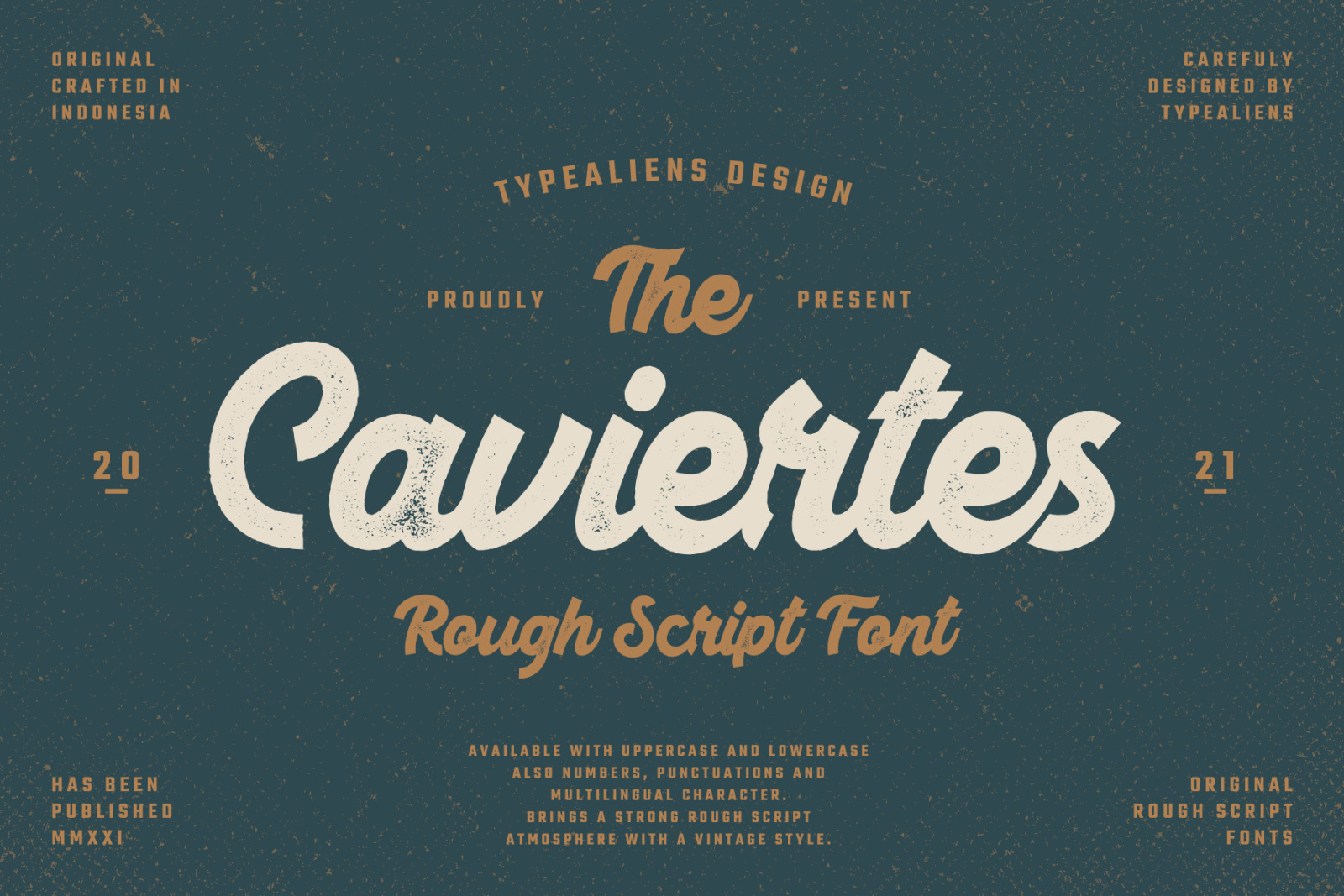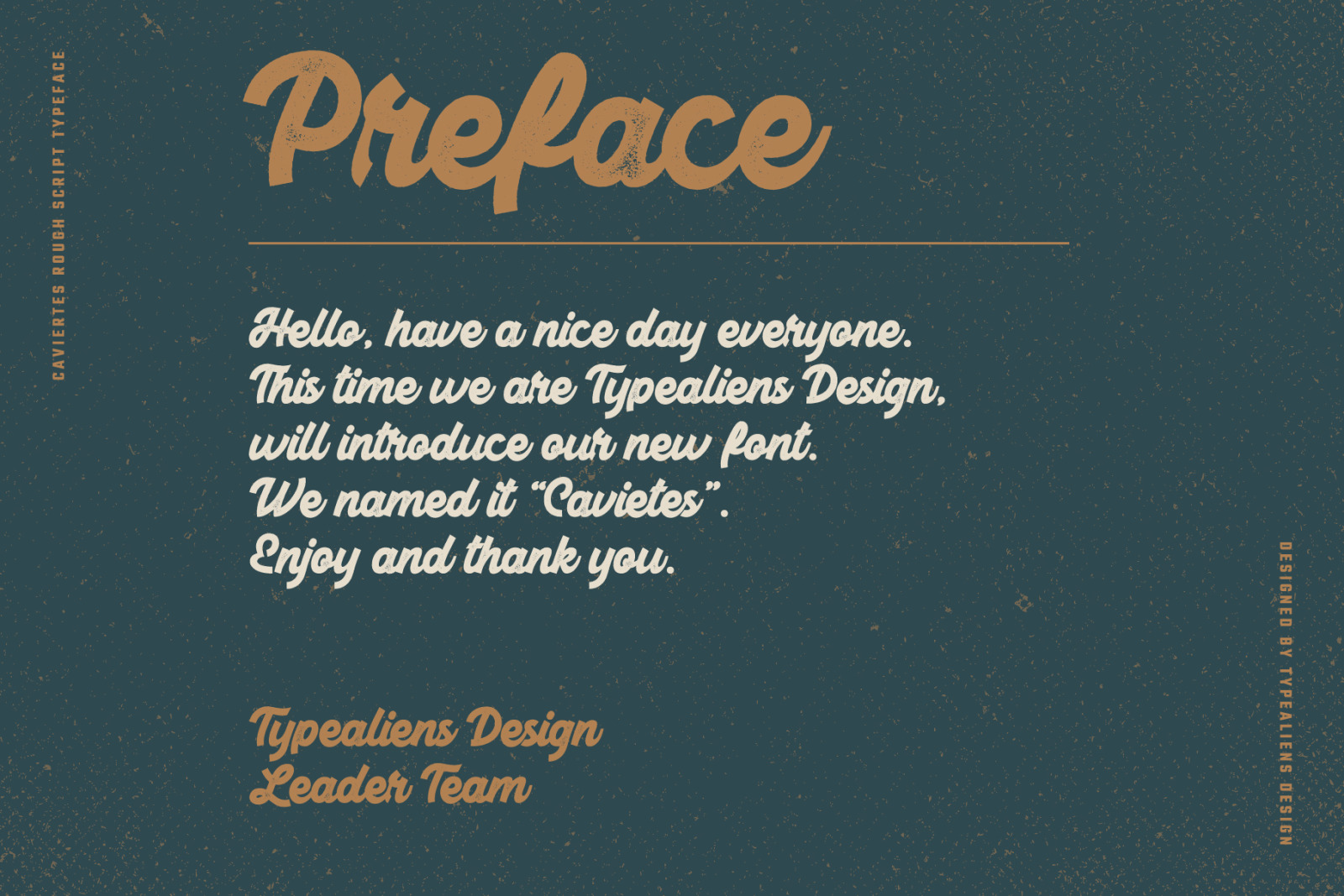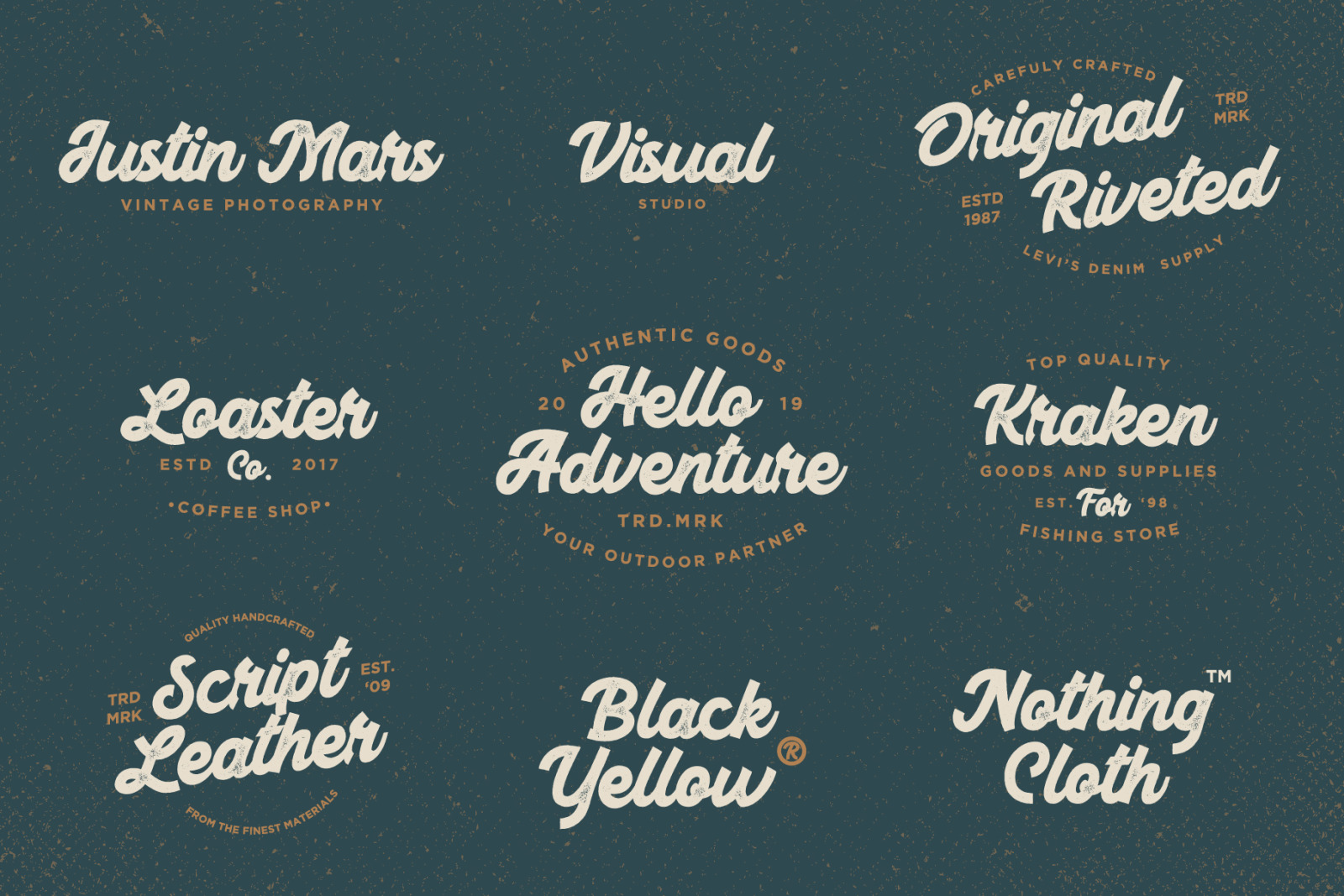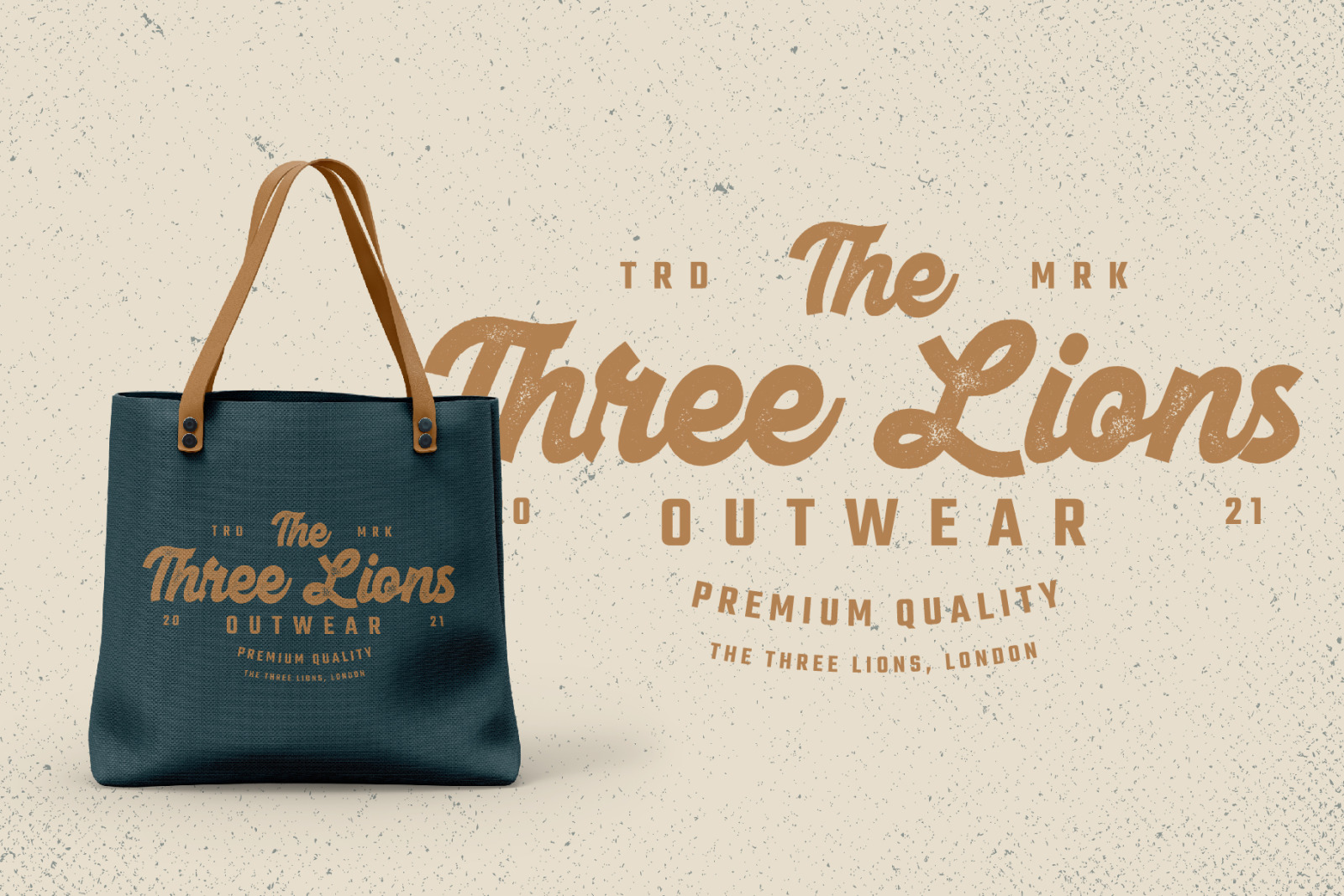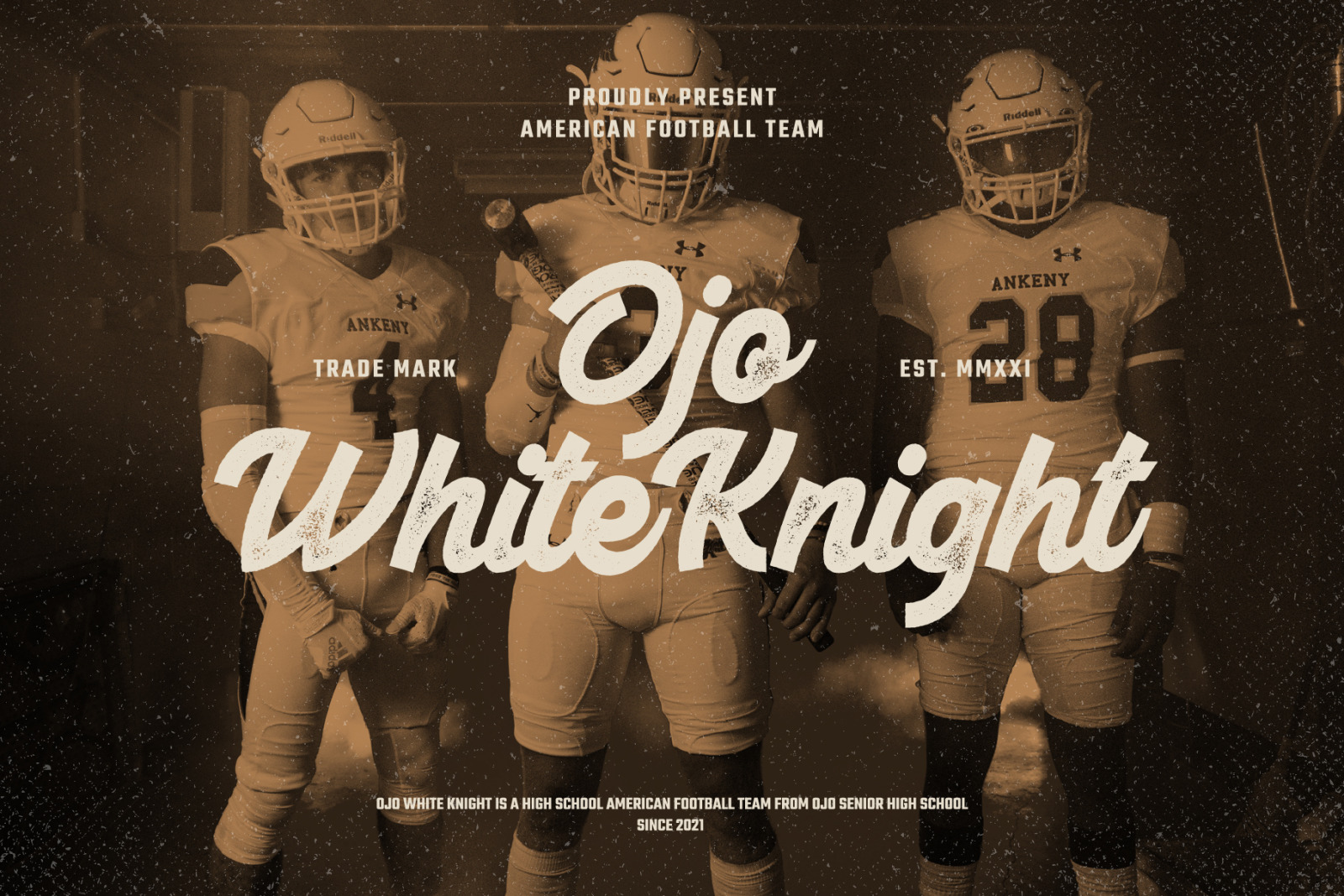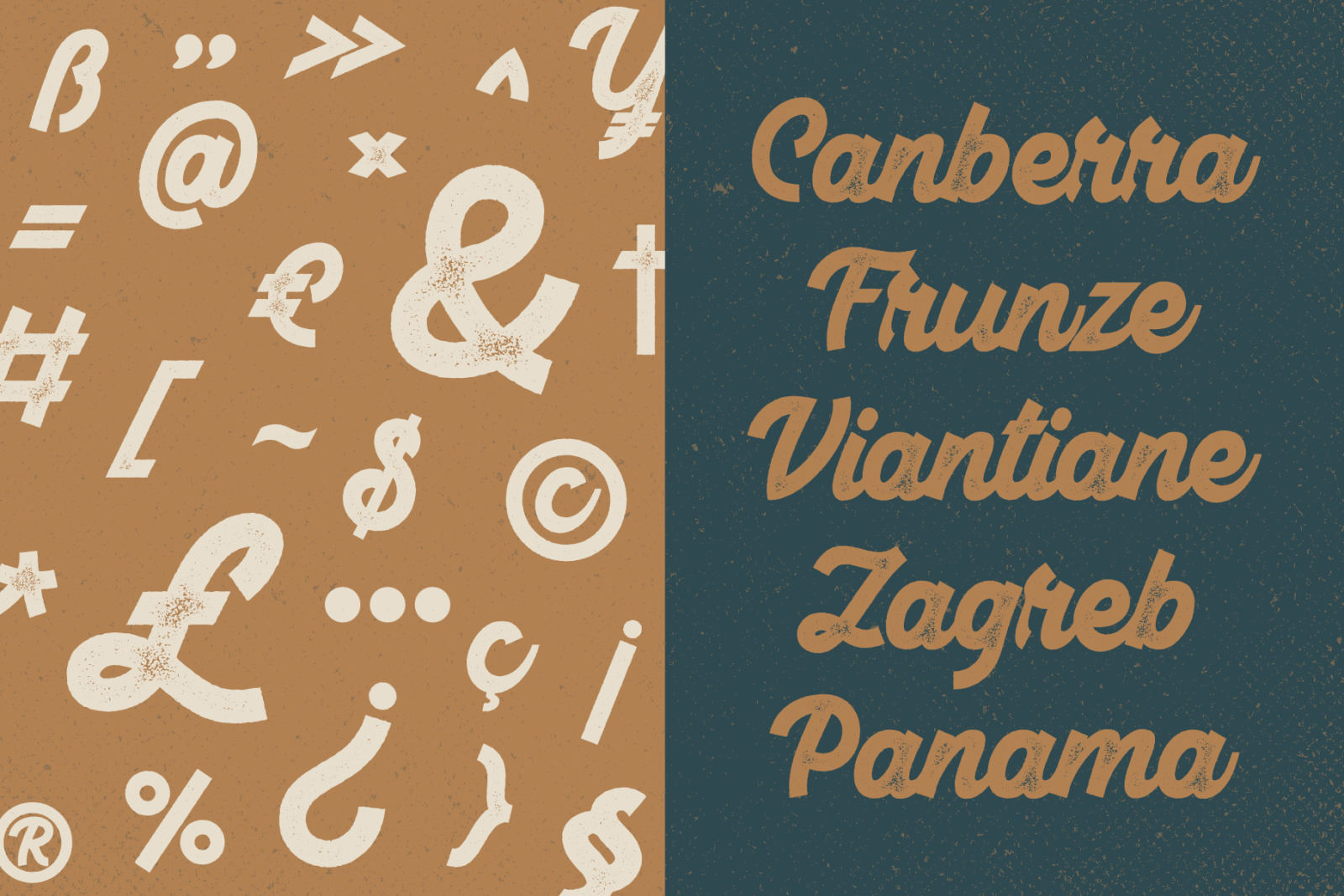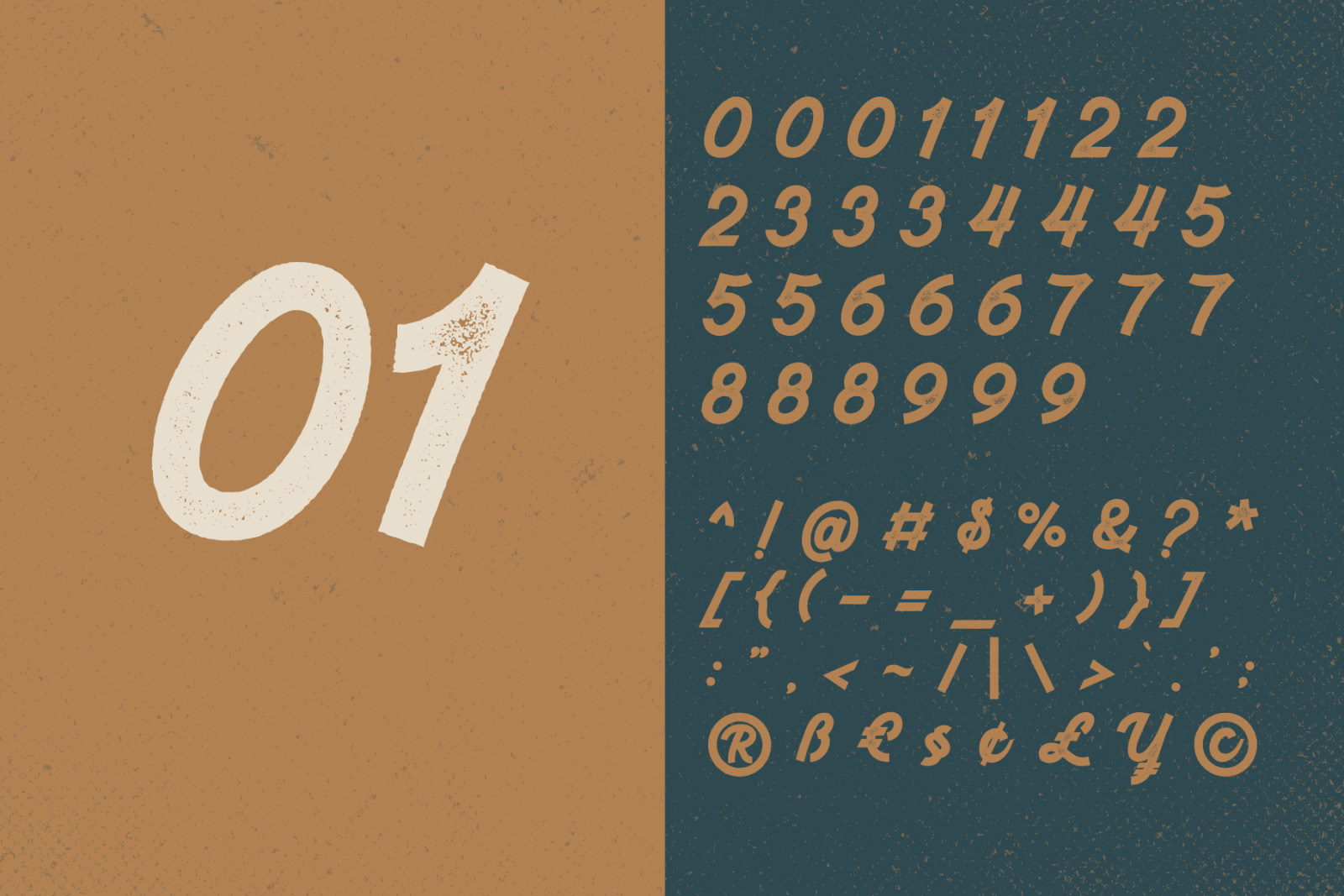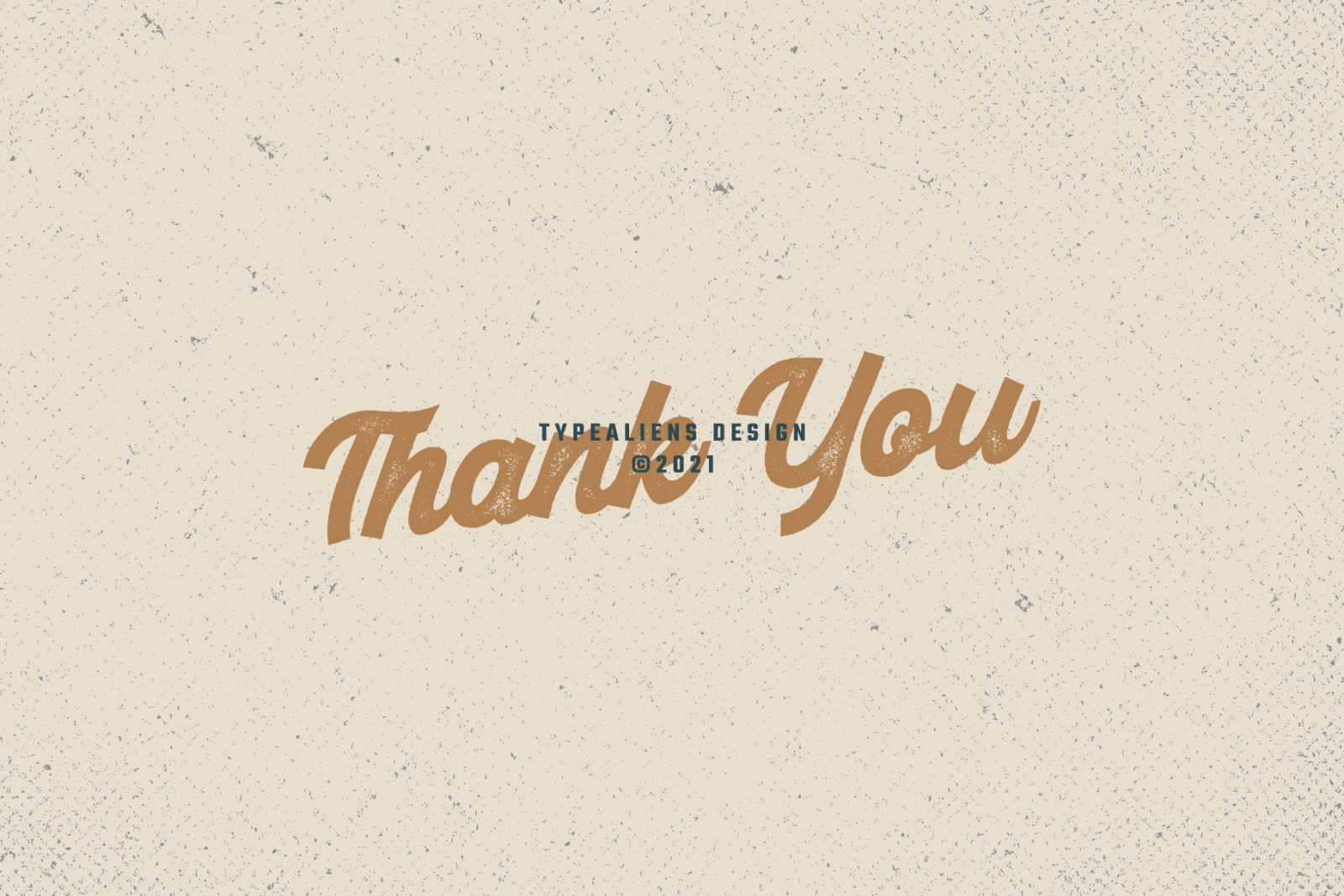
Caviertes Font
CAVIERTES is a bold script font with a rough texture, very cool for designing social media branding of a product, or creating logotype designs.
Very good for digital media or print branding of a brand. Even though it has a modern style, this font has a bit of a vintage feel because of its texture.